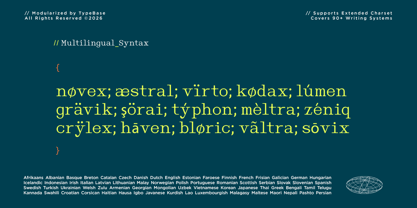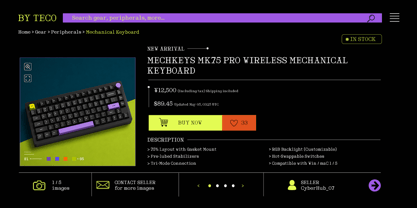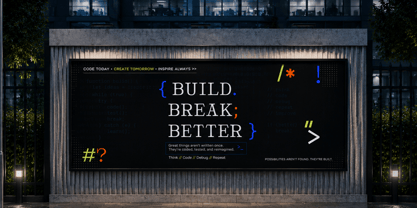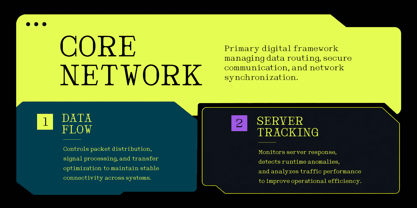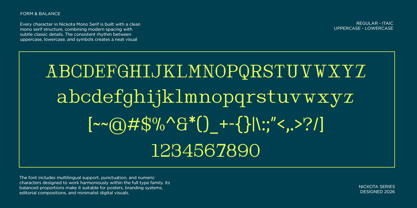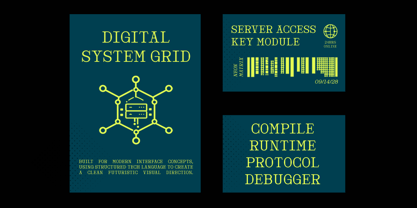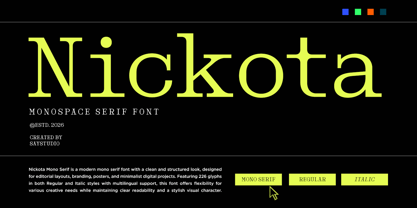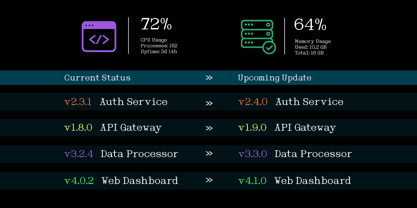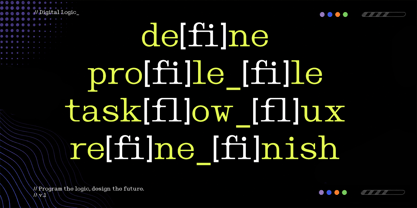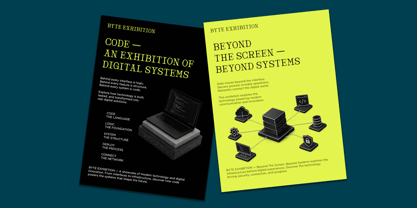
Nickota
The Nickota Font Family was designed by Mussyayin and published by Say Studio. Nickota contains 2 styles and family package options. More about this family
Nickota is a modern monospaced serif font inspired by classic typewriter mechanics, retro coding terminals, and structured developer typography. Combining the timeless character of serif letterforms with the precision of monospaced construction, Nickota delivers a distinctive technical aesthetic that feels both nostalgic and futuristic. Perfect for coding-inspired branding, terminal UI concepts, retro tech posters, developer products, and digital interface design.
Built with Regular and Italic styles, multilingual support, and 262 glyphs, Nickota offers flexibility for creative projects that demand clean alignment, structured readability, and a strong monospace personality. Its typewriter-inspired rhythm makes it ideal for code editors, software branding, startup identity systems, app interfaces, sci-fi visuals, and technology-focused editorial layouts.
Whether you're designing a programming-themed poster, futuristic dashboard UI, hacker-inspired branding, developer merchandise, or retro computer aesthetics, Nickota brings authentic coding energy with a refined serif twist.